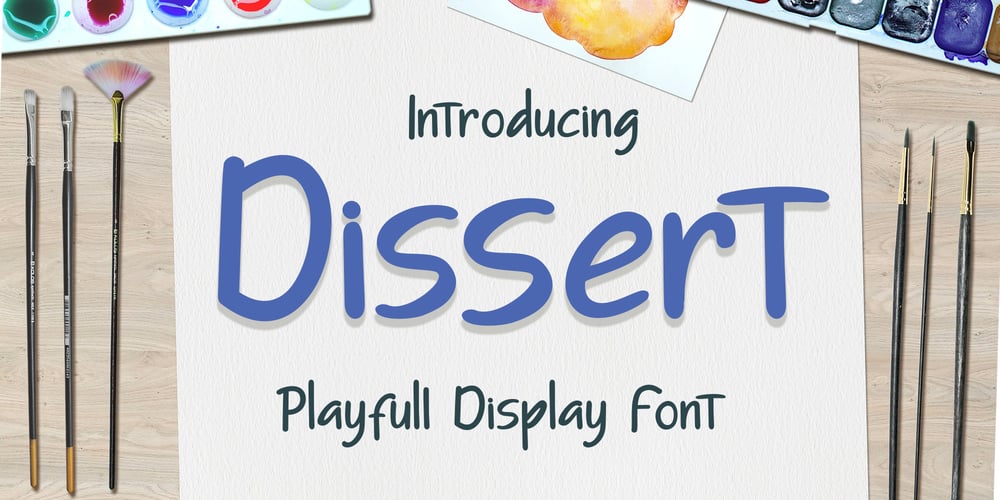
Dissert Font Family was designed by Irfan Mahmudin and published by Skiiller Studio. Dissert contains 1 styles and family package options. Dissert is a playful and unique display font with a charming feel. Get inspired by its unique authentic charm!What’s include:LigaturePUA Encoded Characters – Fully accessible without additional design software.Basic Latin Language Support (AÀÁÂÃÄÅCÇDÐEÈÉÊËIÌÍÎÏÑOØÒÓÔÕÖUÙÜÚÛWYÝŸÆß )How to access alternate glyphs? you can see it on this link ( http://goo.gl/1vy2fv )